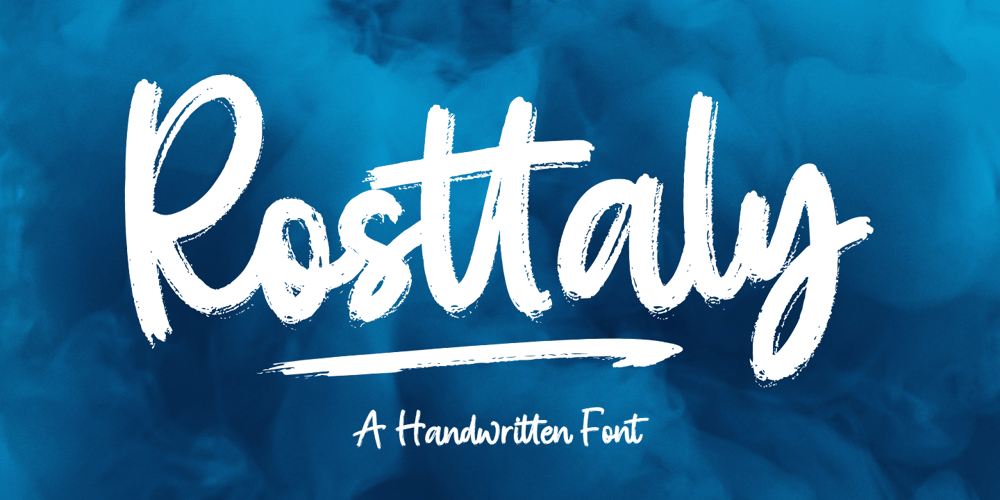
Rosttaly Script Font Family was designed by Muhammad Taufik and published by Rastype Studio. Rosttaly Script contains 3 styles and family package options. Rosttaly is a textured brush font, with natural handcraft and underlines and ligatures that make your designs more interesting. Suitable for use in designs, such as clothing, invitations, book titles, stationery designs, quotes, branding, logos, greeting cards, t-shirts, packaging designs, posters and more.The font includes OpenType features with ligature styles and multi-language support.Thank you for your purchase and happy designing!